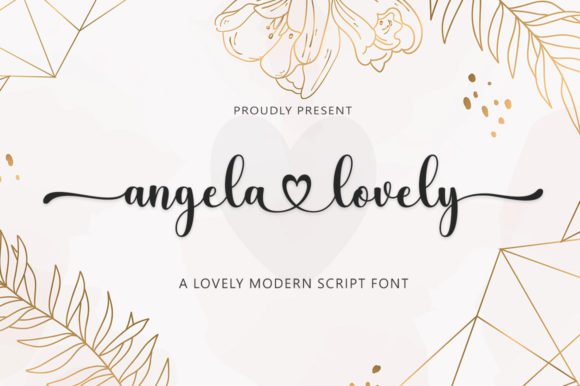
Meet Your New Best Friend: Angela Lovely Font
Do you remember the feeling of rummaging through your grandmother’s old trunk, filled with handwritten letters, postcards, and love notes? The smell of aged paper, the soft touch of the ink on your fingers, and the warmth of a personal message – it’s a sensory experience like no other. As designers, we often strive to recreate this sense of intimacy and warmth in our work.
That’s where the Angela Lovely Font comes in – a sweet and delicate handwritten font that’s perfect for crafting personalized designs that feel like a hug in a digital world. With its dainty and joyful style, this font is ideal for creating one-of-a-kind invitations, greeting cards, and even custom stationery. And the best part? It’s PUA encoded, making it easy to access all of the glyphs and swashes with ease.
Key Features of Angela Lovely Font
- Font Family: Angela Lovely is a beautiful script font designed to evoke a sense of elegance and sophistication.
- Size: The font family includes various weights and styles, ranging from 300 to 900, allowing for flexibility in design and typography.
- Unique Characteristics: Angela Lovely features a unique blend of handwritten and brush script elements, giving it a distinctive and romantic feel.
- Resolution: Designed to be used at high resolutions, Angela Lovely is ideal for printing and digital applications where clarity and precision are crucial.
- Scalability: The font is optimized for use at various sizes, from small captions to large headings, ensuring it remains legible and visually appealing.
Angela Lovely Font Review
Overall, I think the Angela Lovely Font is a charming addition to any design project. ✨ Its elegant script style is perfect for creating a romantic and feminine atmosphere, making it ideal for wedding invitations, greeting cards, or any other design that requires a touch of sweetness.
- ✨ Elegant script style that adds a touch of sophistication
- ✨ Perfect for creating a romantic and feminine atmosphere
- ✨ High-quality font files with clear and readable characters
- ⚠️ Limited language support, making it less suitable for international projects
- ⚠️ Some characters may not be as detailed or refined as others
- ⚠️ May not be suitable for large body text due to its cursive nature
Overall, I think the Angela Lovely Font is a great choice for designers who want to add a touch of elegance and romance to their projects. While it may have some limitations, its unique style and high-quality font files make it a valuable addition to any design library.